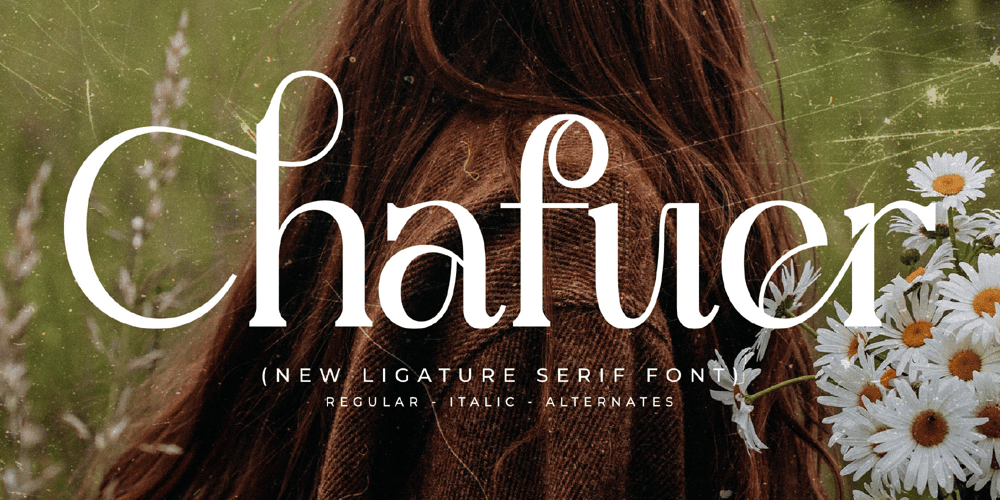
Chafuer
Chafuer font
Chafuer Font Family was designed by Heru Utama Putra and published by Letterena Studios. Chafuer contains 2 styles and family package options. Proudly present Chafuer is a modern and classic serif typeface that has its own unique style. This typeface is perfect for an elegant & luxurious logo, book or movie title design, fashion brand, magazine, clothes, lettering, quotes, and so much more.